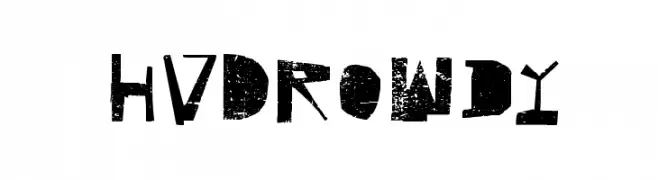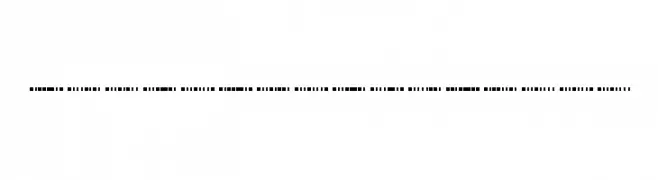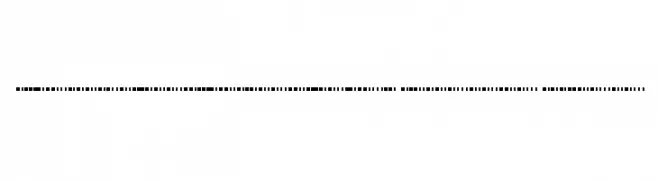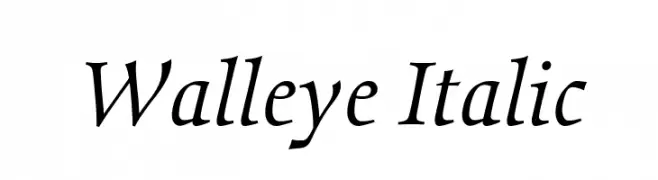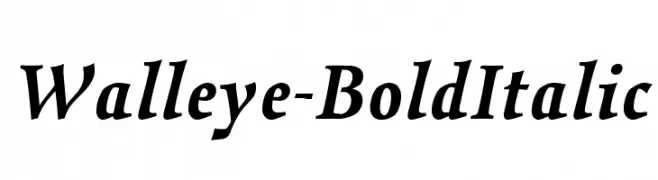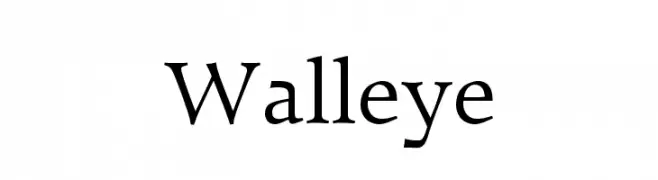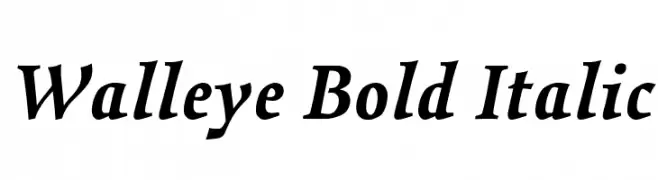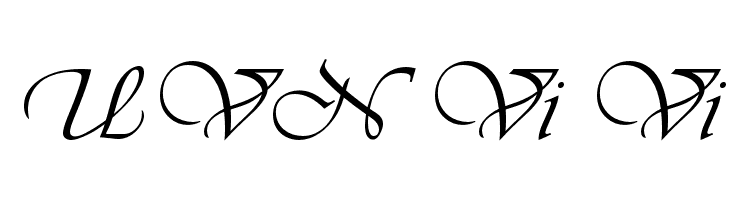
A bold, distressed font with a rugged, urban aesthetic.
A bold, expressive handwritten font with dynamic strokes and unique character flourishes.
A Morse code-inspired font using dots and dashes for each character.
A modern, monospaced font with a digital dot pattern.
A decorative font using binary-like patterns for a digital aesthetic.
An elegant italic serif font with smooth curves and moderate slant.
A bold, italic serif font with strong contrast and elegant serifs.
A classic serif font with elegant strokes and refined details.
A bold serif font with strong, consistent strokes and pronounced serifs.
A bold, italic serif font with strong, dynamic letterforms.